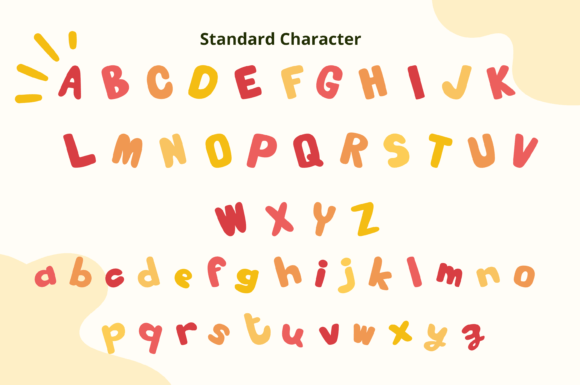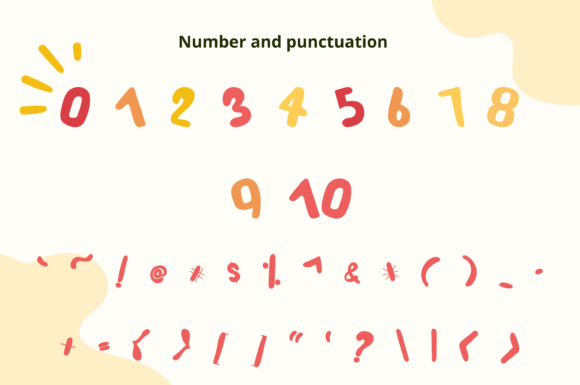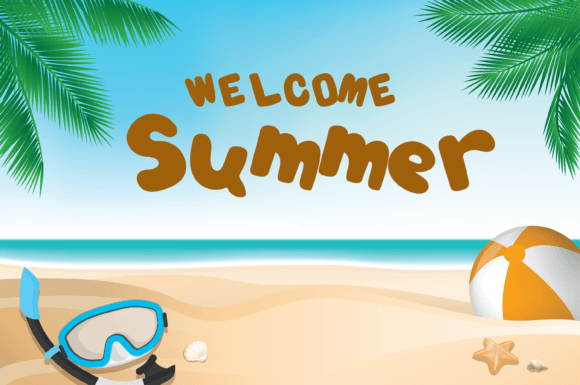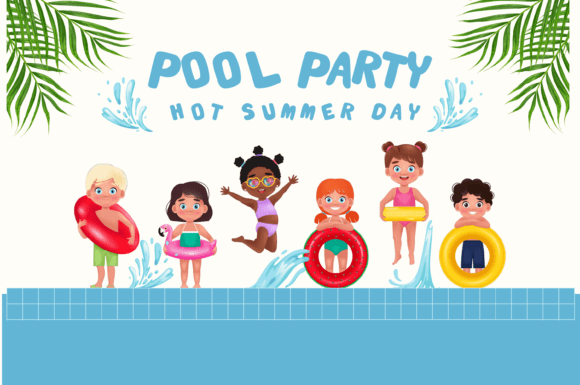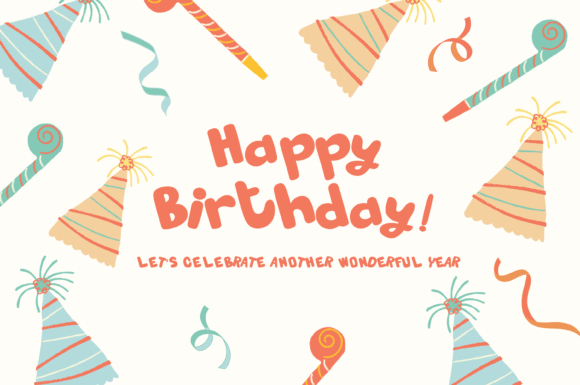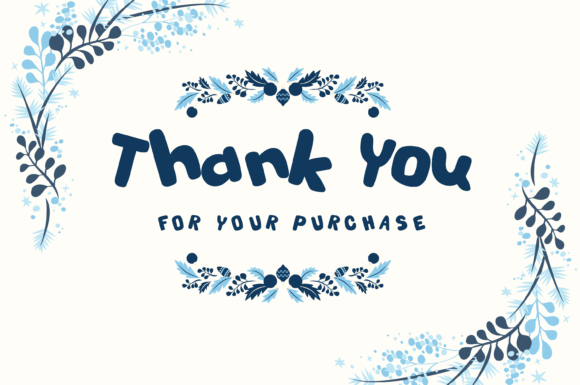
The Ultimate Summer Vibes Font: Aloha Summer
Ah, the sweet taste of summer! As designers, we’re always on the lookout for that perfect font to capture the essence of the season. I still remember the time I was working on a beach-themed project, and I just couldn’t find the right font to bring it to life. My client wanted something fun, playful, and Instagram-worthy, but I was stuck in a design rut. That’s when I stumbled upon Aloha Summer, a whimsical and bouncy display font that’s been a game-changer for my creative projects.
So, what makes Aloha Summer so special? Here are a few things I absolutely adore:
- ✨ Whimsical and playful vibe: This font is perfect for summer-themed projects, from beachy crafts to fun party invitations.
- ✅ Highly versatile: Aloha Summer can easily be matched to an incredibly large set of projects, from digital graphics to print materials.
- 💃 Great for headlines and titles: The font’s bouncy personality makes it perfect for grabbing attention and adding a pop of fun to your designs.
Of course, no font is perfect, and there are a few quirks to consider:
- 🤔 Limited use for body text: While Aloha Summer is amazing for headlines, it’s not the best choice for longer blocks of text. The font’s playful nature can get overwhelming for readers.
- ⚠️ Some letters may require manual kerning: As with any font, you may need to adjust the kerning for certain letter combinations to get the perfect look.
The Designer Inspiration Behind Aloha Summer
According to its designer, Aloha Summer was inspired by the carefree spirit of summer. The font’s creator wanted to capture the essence of sunshine, beaches, and endless possibilities. The result is a font that’s perfect for adding a touch of warmth and personality to your designs.
| What type of projects is Aloha Summer best suited for? | Aloha Summer is perfect for summer-themed projects, such as beachy crafts, party invitations, social media graphics, and more. |
| Is Aloha Summer available in different weights or styles? | Currently, Aloha Summer is available as a single font file. However, you can experiment with different OpenType features to achieve various styles and effects. |